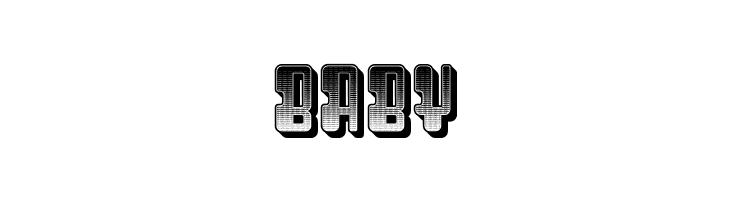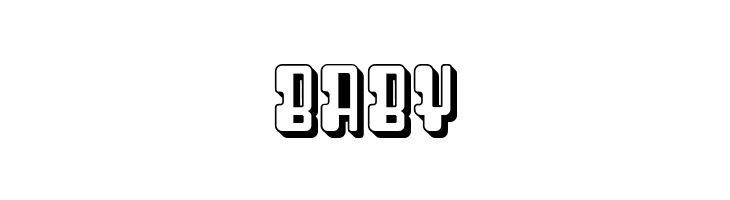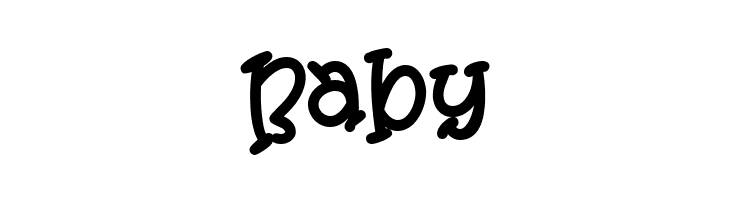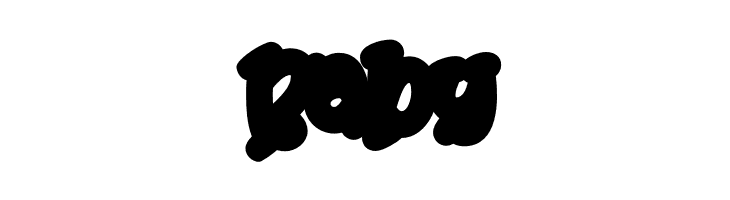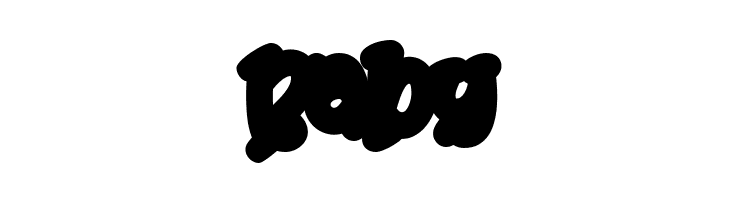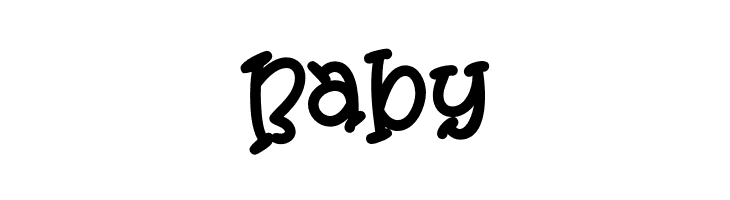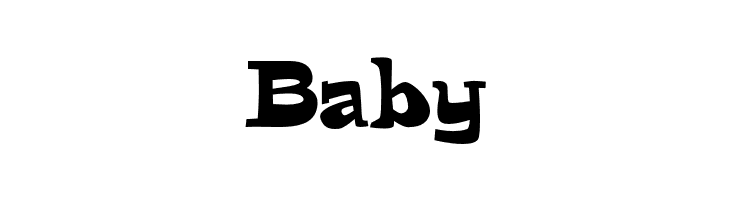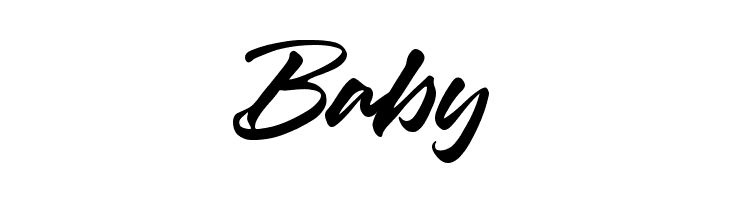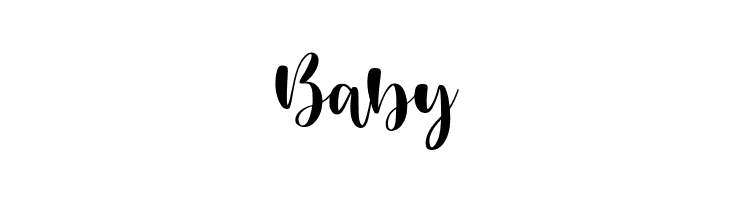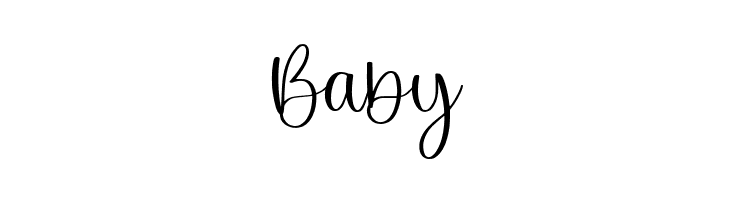
( Fonts by Typodermic Fonts - Raymond Larabie - Personal-use only. For commercial use please contact owner. ) A bold, geometric font with strong, block-like shapes and high contrast. Download 20 Downloads@WebFont
( Fonts by Typodermic Fonts - Raymond Larabie - Personal-use only. For commercial use please contact owner. ) A bold, geometric font with a 3D shadow effect and modern style. Download 24 Downloads@WebFont
( Fonts by Creatype Studio - Rian Rahardi - Personal-use only. For commercial use please contact owner. ) A dynamic brush script font with fluid, expressive strokes. Download 31 Downloads@WebFont
( Fonts by Kong Font - https://fontkong.com/ - Personal-use only. For commercial use please contact owner. ) An elegant, flowing script font with bold uppercase and smooth lowercase letters. Download 436 Downloads@WebFont
( Fonts by Kong Font - https://fontkong.com/ - Personal-use only. For commercial use please contact owner. ) A flowing, elegant script font with a sophisticated, italic style. Download 244 Downloads@WebFont
( Fonts by Rantautype - Yudi Pratama Chandra - Personal-use only. For commercial use please contact owner. ) A flowing, cursive script with elegant, handwritten characteristics. Download 33 Downloads@WebFont
( Personal-use only. For commercial use please contact owner. ) A modern serif font with angular serifs and sharp edges, offering a blend of classic and contemporary styles. Download 67 Downloads@WebFont
( Fonts by Weape Studio - Wahyu Andi - Personal-use only. For commercial use please contact owner. ) A tall, narrow, and modern font with a playful aesthetic. Download 46 Downloads@WebFont
( Fonts by Weape Studio ) A tall, narrow, and modern font with a playful and stylish design. Download 376 Downloads@WebFont
( Fonts by ReyreyBlue - Reyrey Blue - Personal-use only. For commercial use please contact owner. ) A flowing, elegant cursive font with graceful loops and artistic flair. Download 167 Downloads@WebFont
( Fonts by Daddi Daryawan ) A playful, hand-drawn font with bold, rounded characters and a whimsical style. Download 122 Downloads@WebFont
( Fonts by Daddi Daryawan ) A bold, playful script with a decorative, graffiti-like style. Download 68 Downloads@WebFont
( Fonts by Alit Design - Alit Suarnegara - Personal-use only. For commercial use please contact owner. ) A bold, decorative font with ornate serifs and a vintage flair. Download 50 Downloads@WebFont
( Fonts by Din Studio - Donis Miftahudin - Personal-use only. For commercial use please contact owner. ) A dynamic and expressive script font with fluid, sweeping strokes. Download 85 Downloads@WebFont
( Fonts by DM Studio ) A bold, playful font with a unique striped pattern and cartoonish style. Download 175 Downloads@WebFont
( Fonts by Din Studio - Donis Miftahudin - Personal-use only. For commercial use please contact owner. ) A dynamic and elegant script font with fluid, connected strokes. Download 95 Downloads@WebFont
( Fonts by Daddi Daryawan ) A playful, hand-drawn font with bold, rounded characters and a whimsical style. Download 71 Downloads@WebFont
( Fonts by Daddi Daryawan ) A bold, playful font with rounded, exaggerated forms and a whimsical style. Download 53 Downloads@WebFont
( Fonts by selawetype ) A playful, handwritten font with a whimsical and friendly style. Download 122 Downloads@WebFont
( Fonts by Burhan Afif - hanscostudio.com - Personal-use only. For commercial use please contact owner. ) An ornate and decorative font with whimsical swirls and curls, perfect for creative projects. Download 193 Downloads@WebFont
( Fonts by Doehantz Studio - Abduhan Fikhri - Personal-use only. For commercial use please contact owner. ) A graceful script font with elegant, flowing letters and high contrast strokes. Download 49 Downloads@WebFont
( Fonts by Balpirick Studio - https://www.creativefabrica.com/designer/balpirick/ref/308299/ - Personal-use only. For commercial use please contact owner. ) A flowing, cursive font with elegant, interconnected strokes. Download 166 Downloads@WebFont
( Fonts by Vladimir Nikolic - https://www.creativefabrica.com/product/educated-deers/ref/144265/ - Personal-use only. For commercial use please contact owner. ) A bold, geometric font with a three-dimensional outline, ideal for display use. Download 61 Downloads@WebFont
( Fonts by Vladimir Nikolic - https://www.creativefabrica.com/product/educated-deers/ref/144265/ - Personal-use only. For commercial use please contact owner. ) A bold, geometric font with hollow interiors and thick outlines. Download 73 Downloads@WebFont
( Fonts by Vladimir Nikolic - https://www.creativefabrica.com/product/educated-deers/ref/144265/ - Personal-use only. For commercial use please contact owner. ) A bold, decorative font with a grid pattern and thick outlines, offering a modern and playful style. Download 65 Downloads@WebFont
( Fonts by Vladimir Nikolic ) An artistic font with human profiles as characters, offering a bold and whimsical design. Download 59 Downloads@WebFont
( Fonts by Vladimir Nikolic - www.creativefabrica.com/designer/vladimirnikolic/ - Personal-use only. For commercial use please contact owner. ) A bold, distressed font with a textured, rugged appearance. Download 37 Downloads@WebFont
( Fonts by Sulthanstudio - Nasrullah - Personal-use only. For commercial use please contact owner. ) An elegant script font with graceful curves and a calligraphic style. Download 33 Downloads@WebFont
( Fonts by Rafael Ferran i Peralta ) A bold, playful font with irregular, cartoonish letterforms. Download 122 Downloads@WebFont